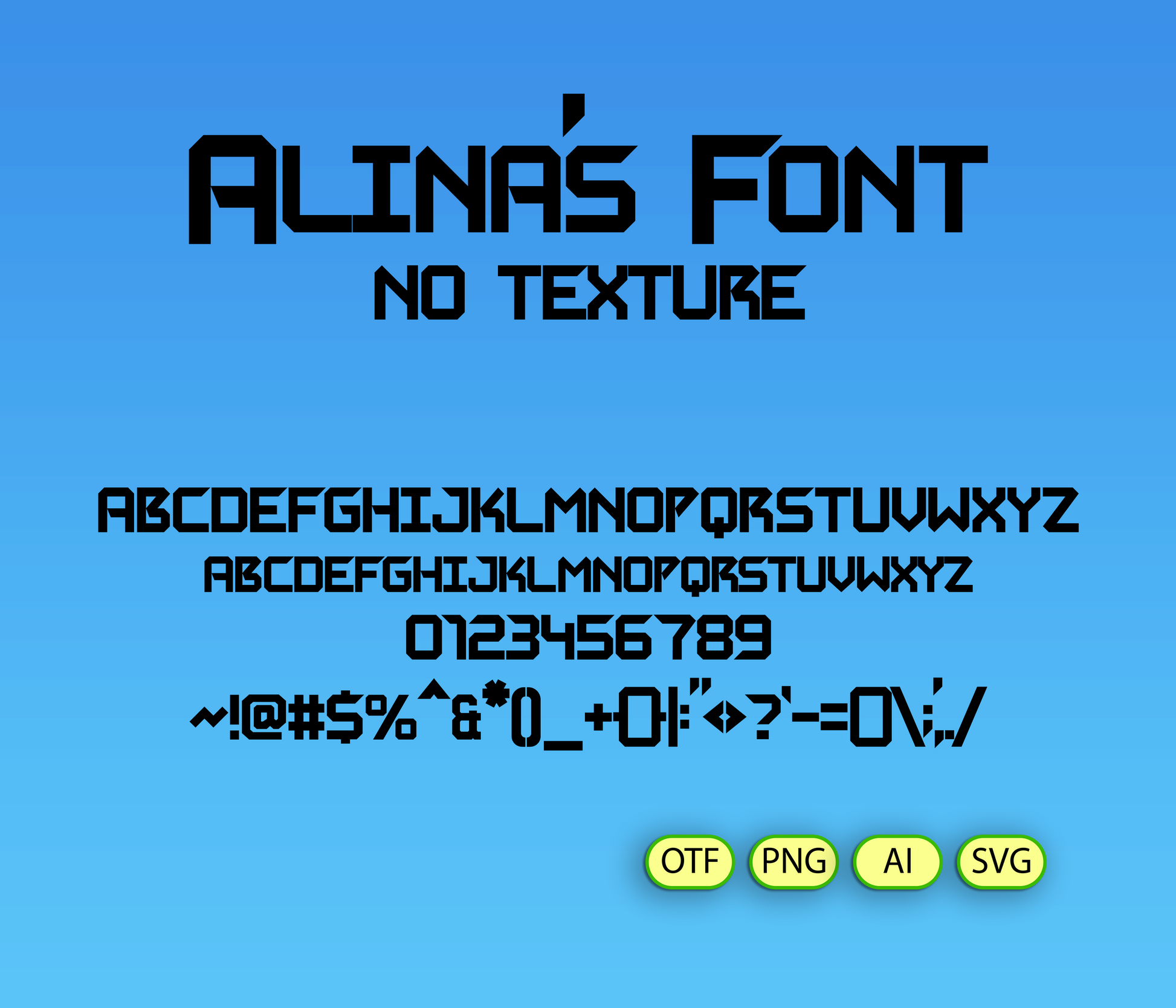
Metal Protector Font
Step into the retro-futuristic world of mechanized law enforcement with our Metal Protector font, capturing the essence of urban justice and chrome-plated peacekeeping. Perfect for sci-fi fans, retro tech enthusiasts, event organizers, and designers, this font brings the commanding, metallic spirit of automated protection to your projects. Create cyberpunk materials, merchandise, or digital content with the industrial energy of future policing.
Our Metal Protector font features industrial, mechanical lines and steel-like characters reflecting the world of automated justice. Ideal for:
1. Event Promotions: Create commanding invites, posters, and banners for retro sci-fi screenings, conventions, and themed parties that capture the spirit of cyber law enforcement
2. Merchandise Design: Perfect for t-shirts, posters, and accessories that showcase the titanium aesthetic of future peacekeeping
3. Digital Media: Enhance websites, blogs, and social media with dynamic headers and graphics that express the power of mechanical authority
4. Sci-Fi Content: Add authentic flair to fan art, cyberpunk projects, and creative designs inspired by automated law enforcement
5. Personal Projects: Bring retro-tech excitement to scrapbooking, DIY crafts, and home decor inspired by the world of mechanized protection
Our font pays tribute to the iconic world of cybernetic law enforcement, empowering your designs with its mechanical and authoritative spirit. Whether crafting promotional materials, designing merchandise, or adding a dynamic touch to personal projects, this font communicates the bold essence of future justice. Ready to inject cyber-tech power into your creations? This font is your key to exciting, impactful design.